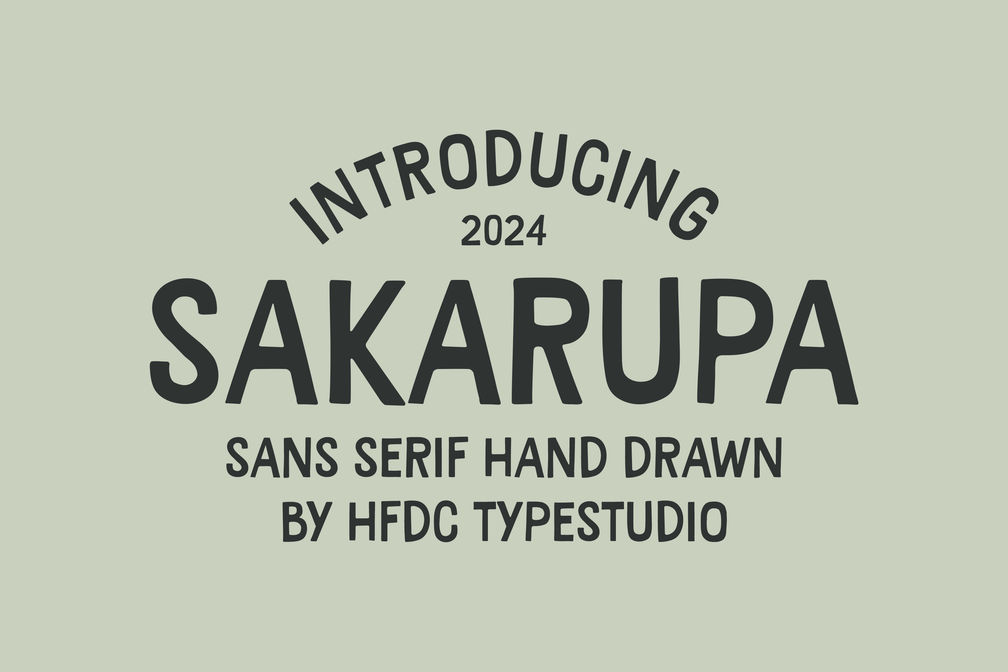
Sakarupa Hand Drawn
Sakarupa is a captivating sans serif font that embodies a hand-drawn, rough, and playful aesthetic, making it perfect for a variety of creative projects. Its quirky charm adds a delightful touch to logos, posters, and cover designs, ensuring your brand stands out with a unique personality. The font’s versatility shines through in applications such as packaging, flyers, and brochures, where it effortlessly captures attention and conveys a sense of fun. Whether you’re crafting a whimsical brand identity or an engaging marketing piece, Sakarupa’s engaging design will resonate with your audience.
Designed with a comprehensive ~220+ glyph set, Sakarupa offers multilingual support, making it an ideal choice for global branding efforts. Available in TTF, OTF, WOFF, and WOFF2 formats, this font ensures compatibility across various platforms and applications, allowing for seamless integration into your design workflow. By choosing Sakarupa, you’re not just selecting a font; you’re embracing a creative tool that adds character and vibrancy to your projects, ultimately enhancing your brand’s visibility and impact.
• Uppercase and Lowercase
• Numeral
• Punctuation
• Style: Regular and Italic
• Multilingual Support